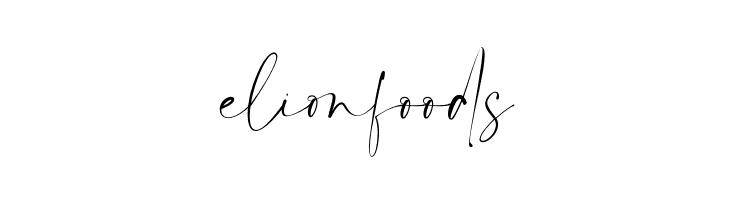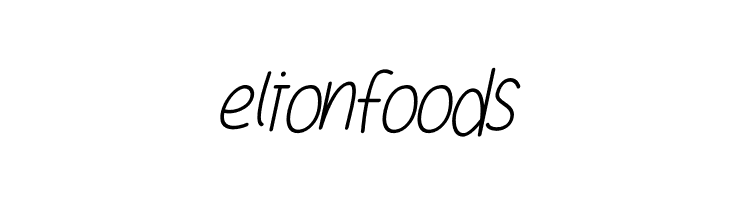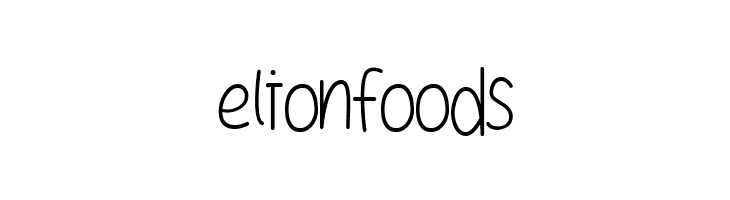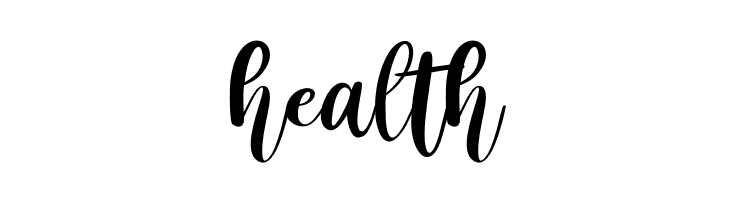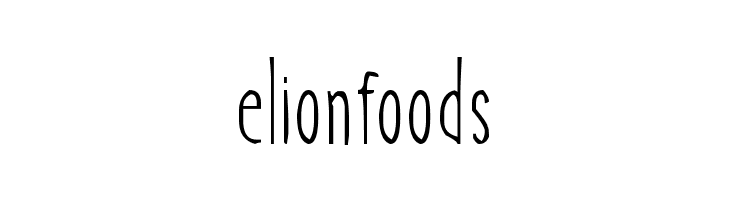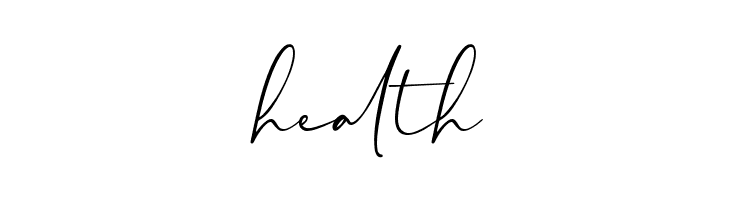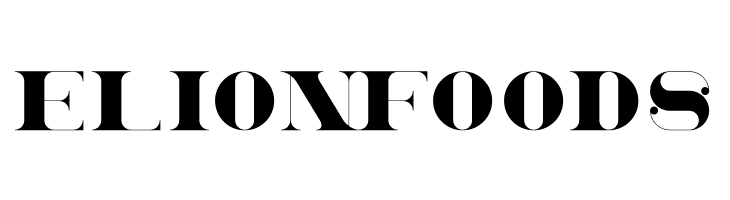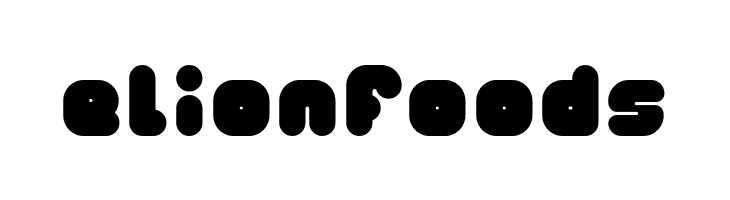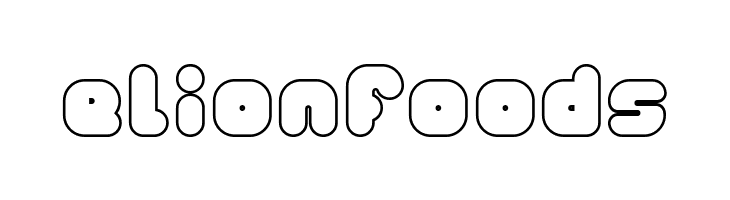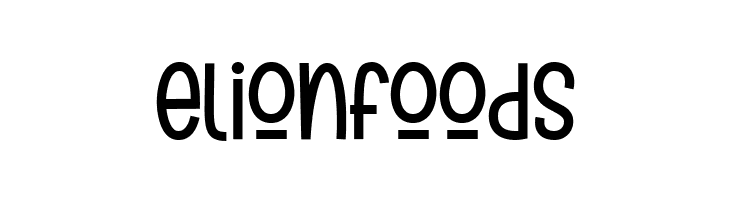
A playful handwritten font with a casual and friendly style.
A playful, flowing handwritten font with smooth curves and a casual style.
A playful, spotted font with a whimsical and decorative style.
A bold, decorative font with playful, spot-like patterns.
A bold, italicized font with a playful, artistic style and irregular strokes.
A playful, italicized font with a Dalmatian-inspired spotted pattern.
A bold, distressed font with a rugged, vintage aesthetic.
An elegant, cursive script font with flowing lines and sophisticated style.
A bold, playful font with rounded, bubble-like characters.
A bold, playful font with rounded edges and a retro vibe.
A bold, rounded, and playful italic font with a modern aesthetic.
A playful, hollow font with bold outlines and a bubbly, rounded style.
A playful, hollow font with rounded edges and a whimsical design.
A playful, bold font with rounded, bubbly characters and a whimsical style.
A playful, bold font with exaggerated curves and a whimsical style.
A playful, handwritten font with bold, rounded strokes and a casual, friendly appearance.
A playful and whimsical font with rounded, slightly irregular letterforms.
A digital, segmented font inspired by LED displays.
A bold, geometric font with a digital, futuristic style.
A digital, geometric font with a blocky, futuristic style.
A futuristic, skewed font with a digital, geometric style.
A digital, futuristic font with a skewed, narrow design and bold geometric shapes.
A segmented, digital-style font inspired by LED displays.
A segmented, digital-style font with a futuristic and technical appearance.
A digital, segmented font with a skewed, narrow design, ideal for tech themes.
A bold, geometric font with rounded edges and a futuristic style.
A bold, high-contrast serif font with modern cut-out details.
A fluid, elegant handwritten script with artistic loops and swirls.
A bold, flowing script font with vintage American diner charm.
A playful, hand-drawn font with tall, narrow letters and a whimsical style.